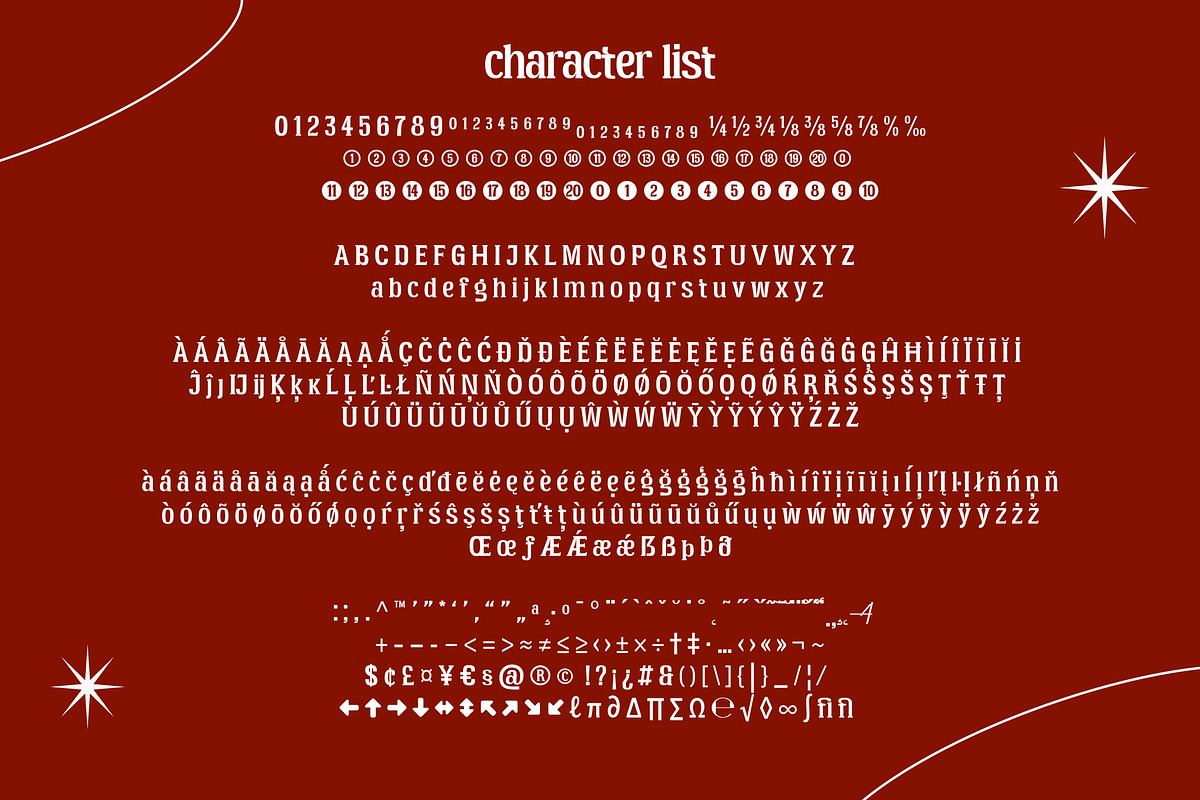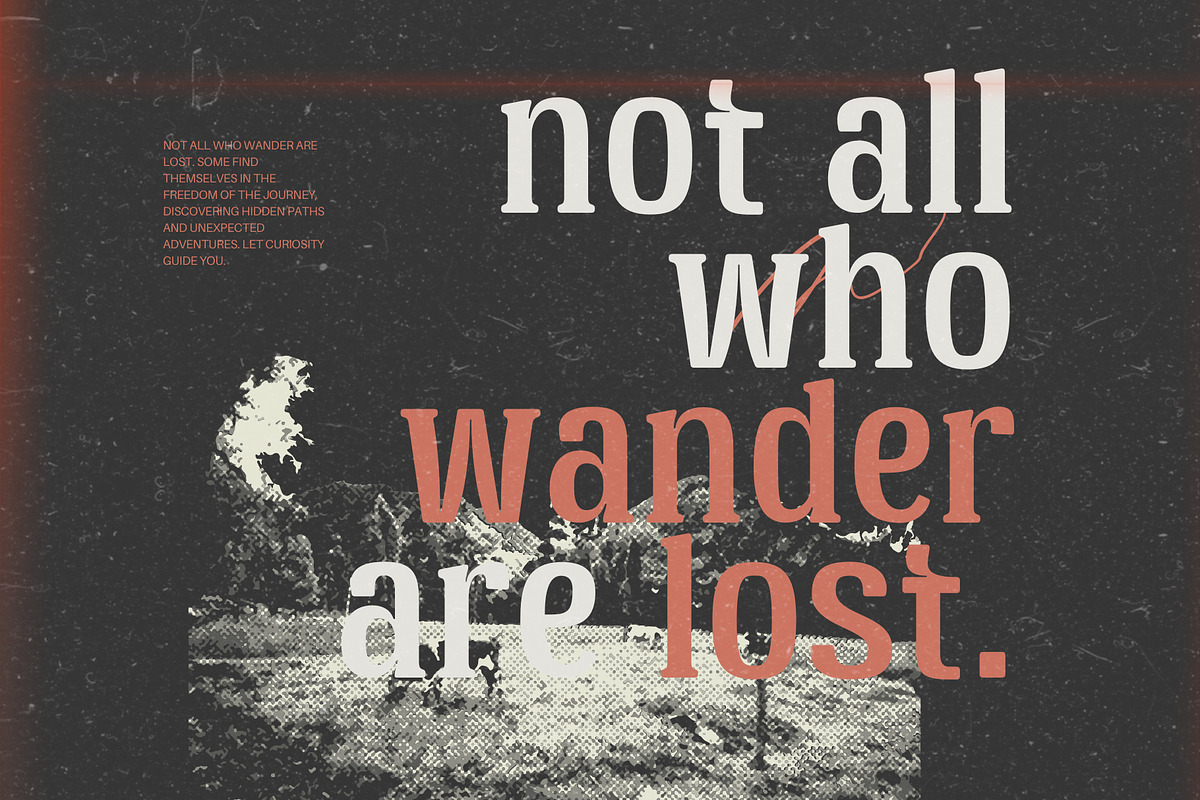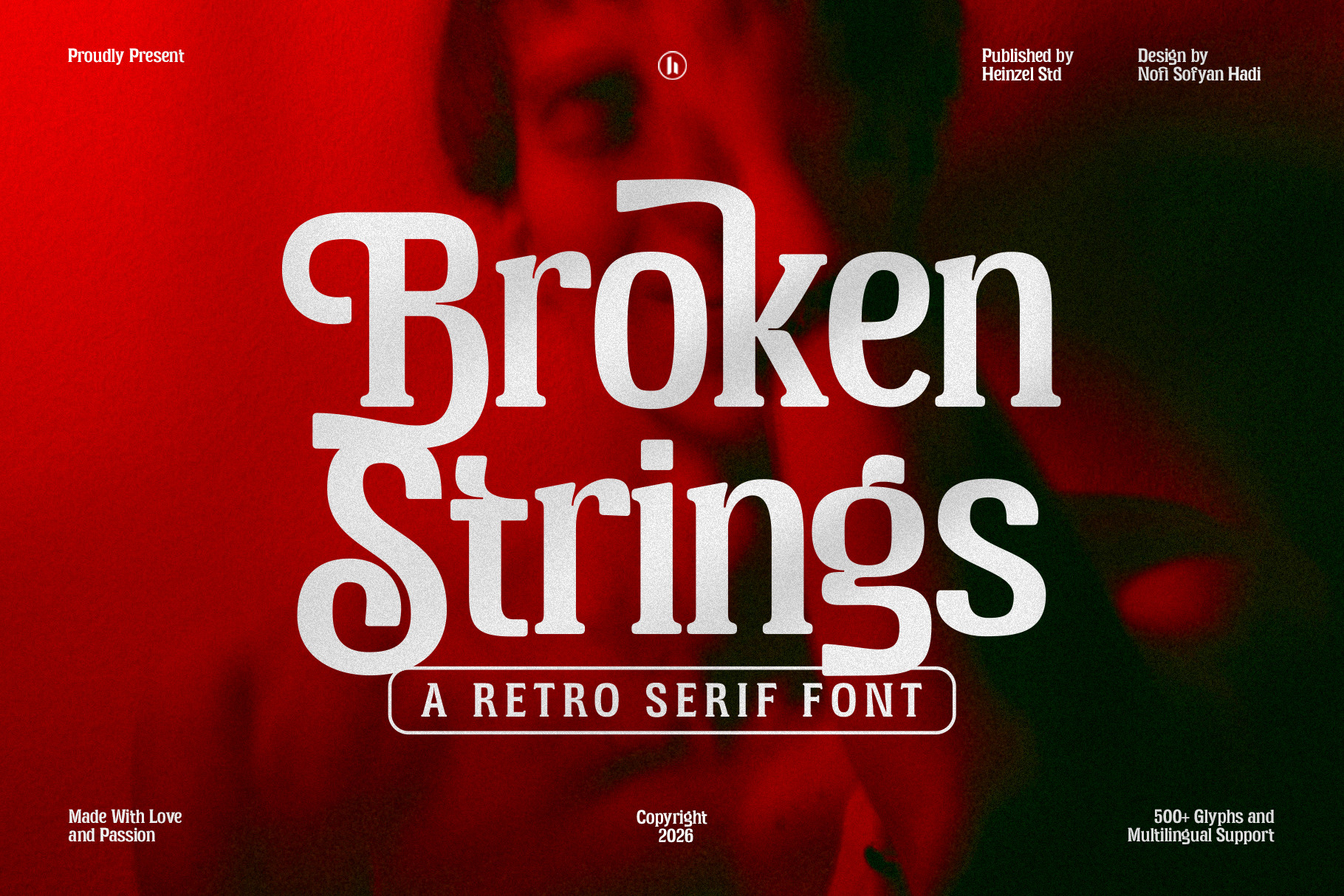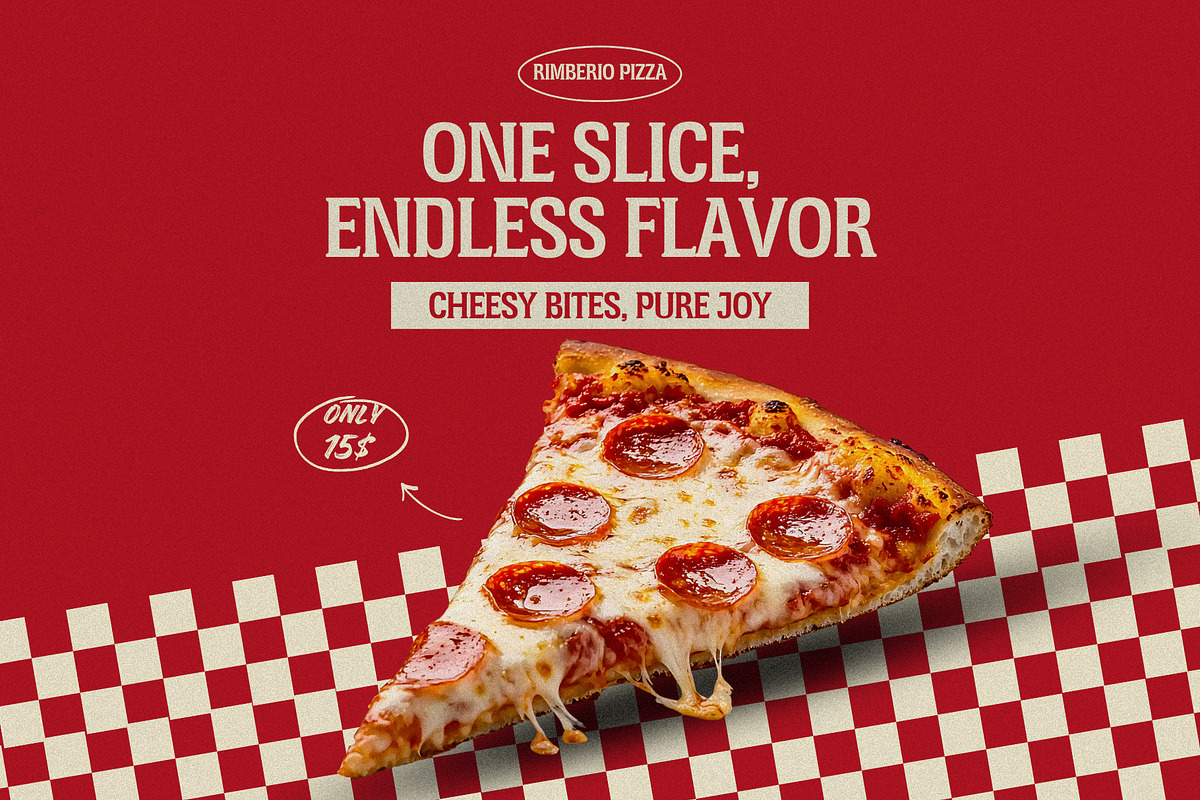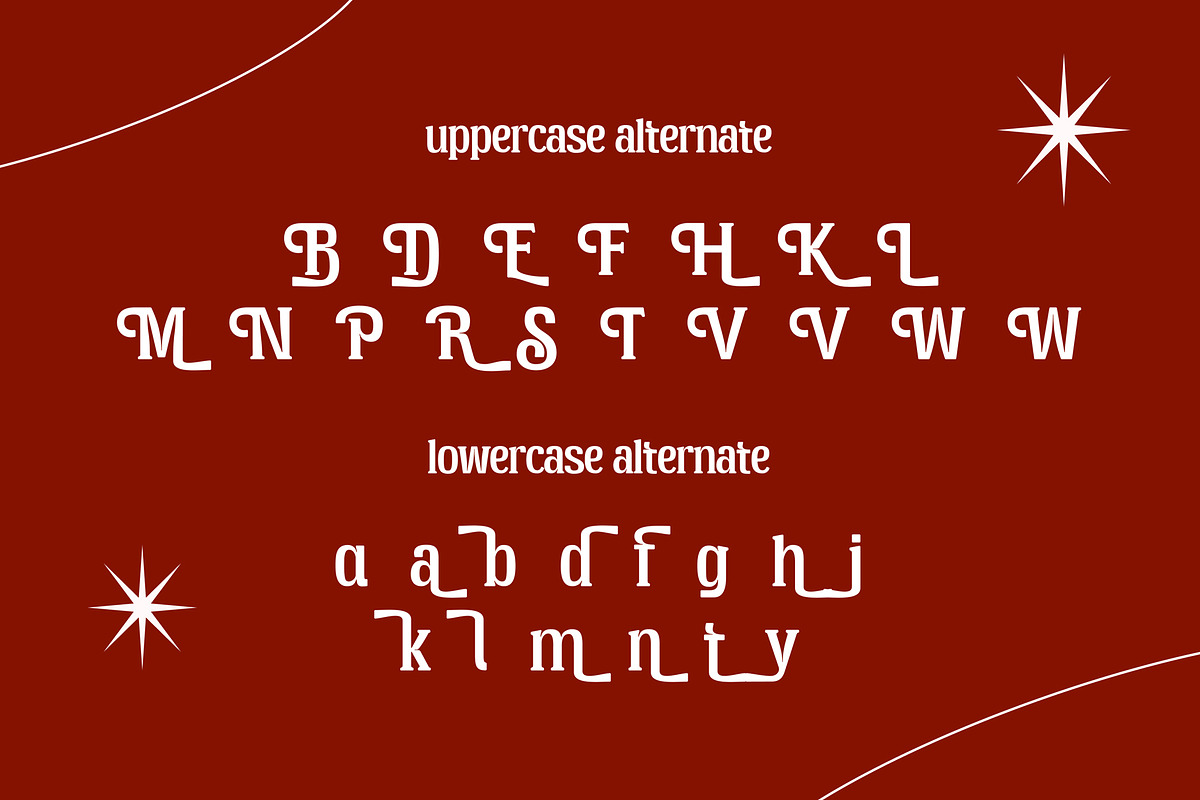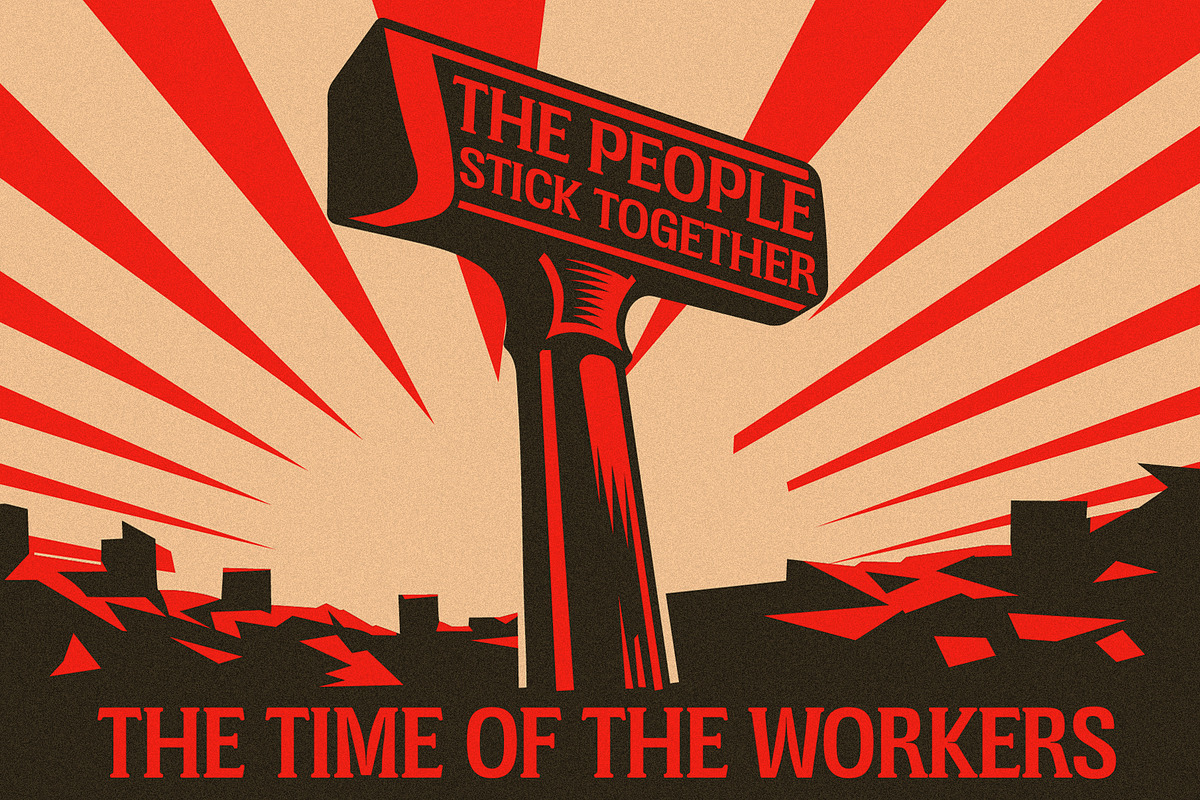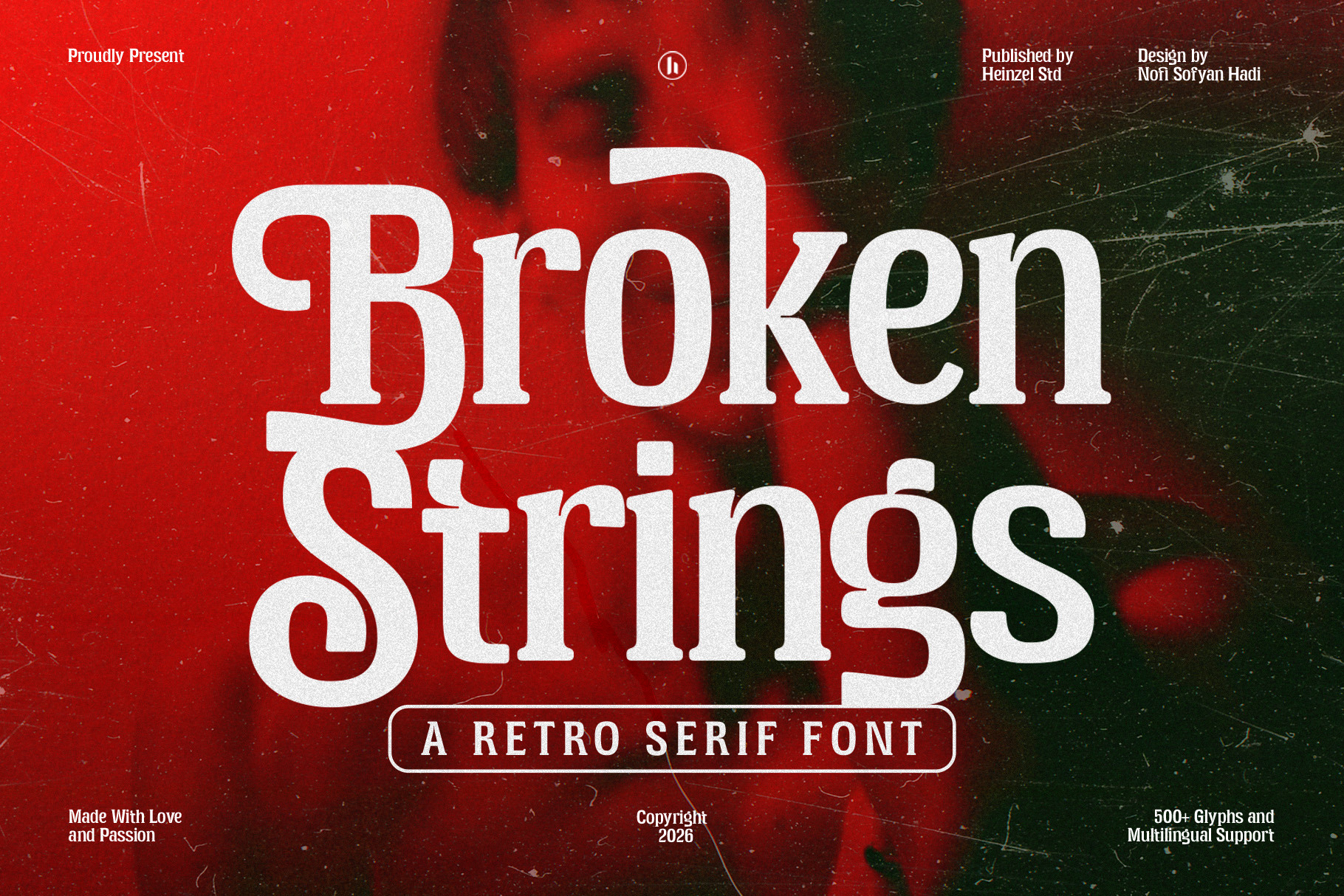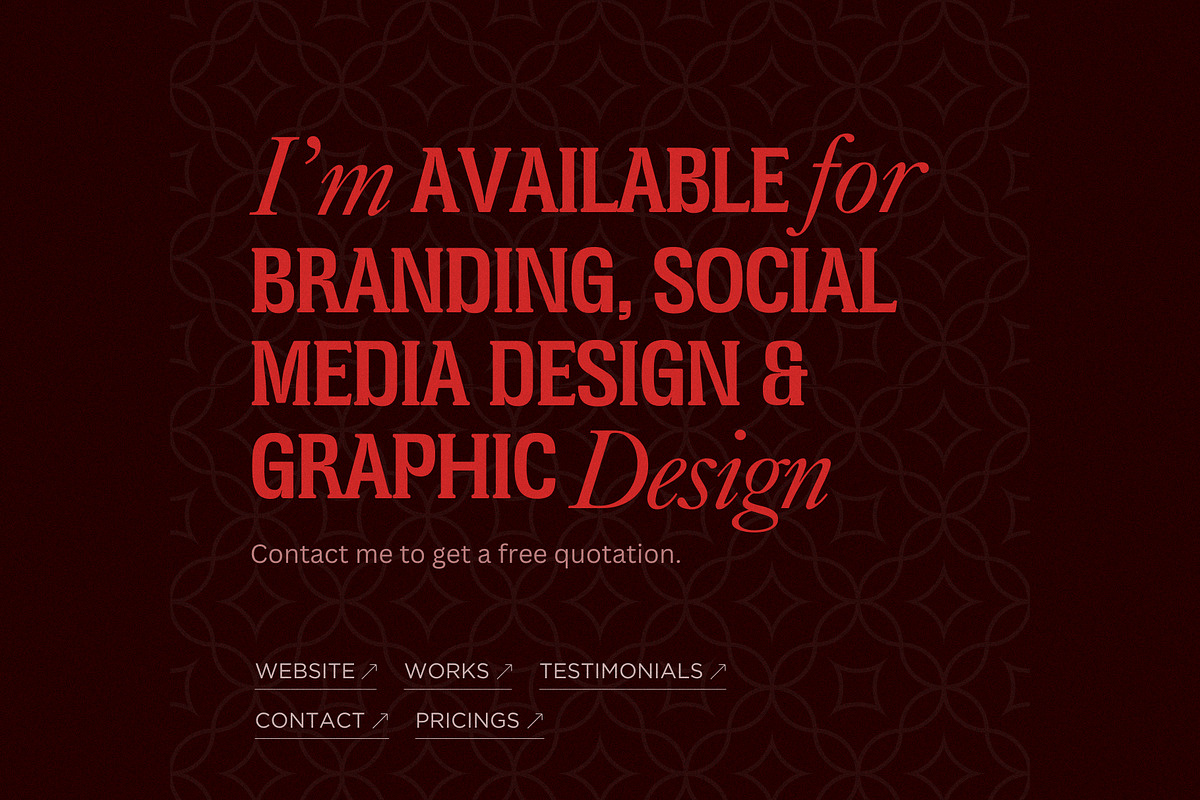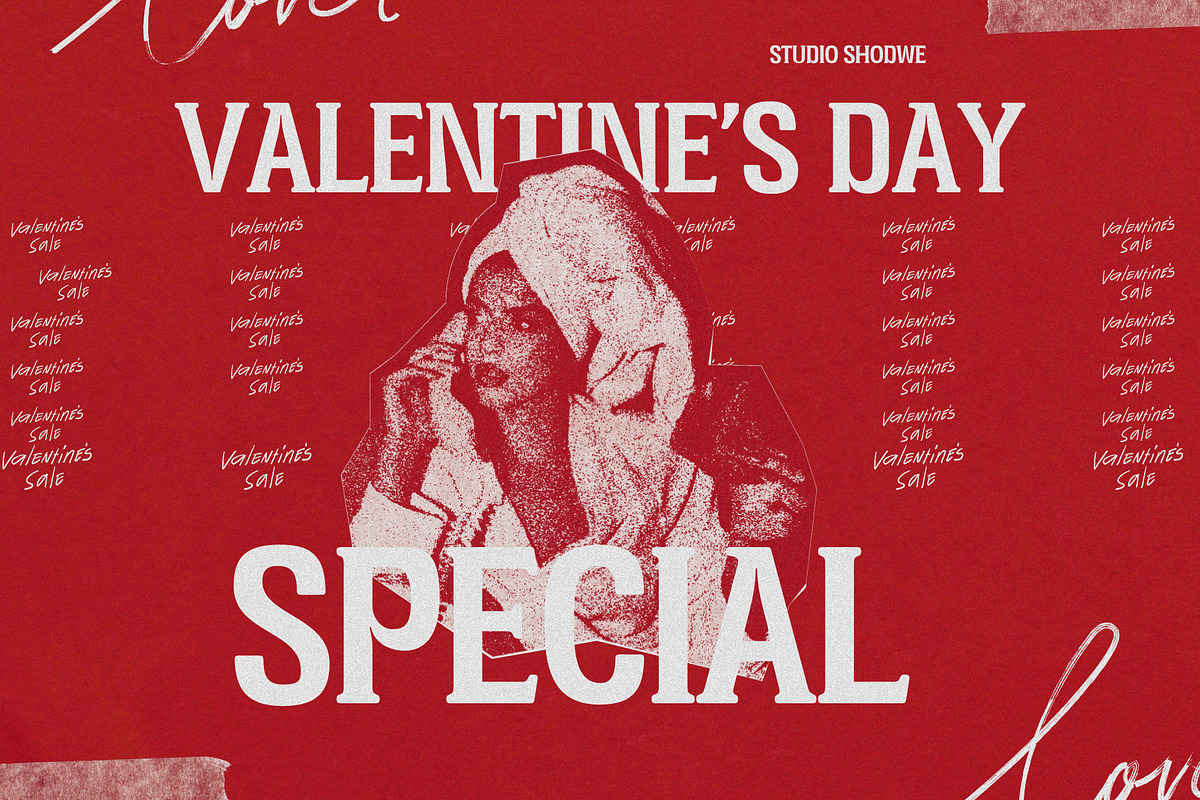
Broken Strings Retro Font
Broken Strings is a bold retro serif font that captures nostalgic charm with expressive character shapes and classic proportions. Inspired by vintage posters, album covers, and timeless print design, this font blends strong serif details with a slightly playful, handcrafted feel. Its distinctive curves and confident letterforms make Broken Strings perfect for branding, logos, headlines, packaging, posters, apparel, and editorial designs. With a warm retro personality and modern readability, Broken Strings adds character, emotion, and authenticity to any creative project.